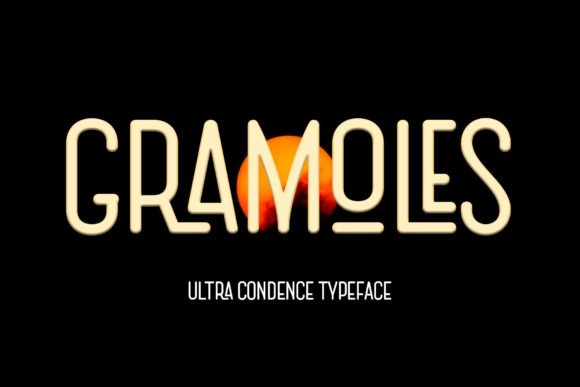
Adding a Touch of Nostalgia to Your Designs
Have you ever been rummaging through an old trunk or attic, stumbling upon a dusty old typewriter or a vintage advertisement that sparks your creativity? That’s exactly what happens when you come across the Gramoles Font – a cool, vintage styled display font that’s sure to transport you back in time.
Designed to evoke the charm of a bygone era, the Gramoles Font is perfect for adding a retro touch to your designs. Whether you’re working on a branding project, creating a poster, or designing a website, this font is sure to be a valuable addition to your toolkit. With its unique character and nostalgic feel, the Gramoles Font is a game-changer for designers looking to add a touch of vintage flair to their work.
Gramoles Font Key Features
- Font Family: Gramoles is a sans-serif font family, offering a clean and modern aesthetic.
- Unique Characteristics: Gramoles features a unique blend of geometric and organic elements, resulting in a distinctive and eye-catching visual identity.
Designer Review: Gramoles Font
Overall, I think Gramoles is a decent font, but it has its quirks. ✨ The first thing I noticed is the unique, playful feel it gives to any text. It’s perfect for designs that need a bit of whimsy and personality. The font also has a wide range of weights, from light to bold, which makes it versatile for various design applications.
One of the things that works well about Gramoles is its legibility. ✨ Even at smaller font sizes, the text remains clear and easy to read. This makes it a great choice for body text, headings, or even signage. The font also has a high level of x-height, which contributes to its excellent readability.
- ⚠️ The font may not be suitable for formal or professional designs. Its playful feel may come across as unprofessional in certain contexts.
- ⚠️ Gramoles can be quite loud, and its unique character may overwhelm the design if not used judiciously.
- ⚠️ The font’s irregular shapes and strokes can make it challenging to use in certain design applications, such as small text or intricate layouts.
Overall, I think Gramoles is a fun and quirky font that can add a lot of personality to designs. However, it may not be the best choice for every project, and designers should use it with caution to avoid overwhelming the design.
Gramoles Font is a great choice for:
- Adding a touch of elegance to your designs.
- Creating a vintage or retro feel.
- Highlighting important text or quotes.
Remember to experiment with different font sizes, colors, and styles to get the most out of Gramoles Font.